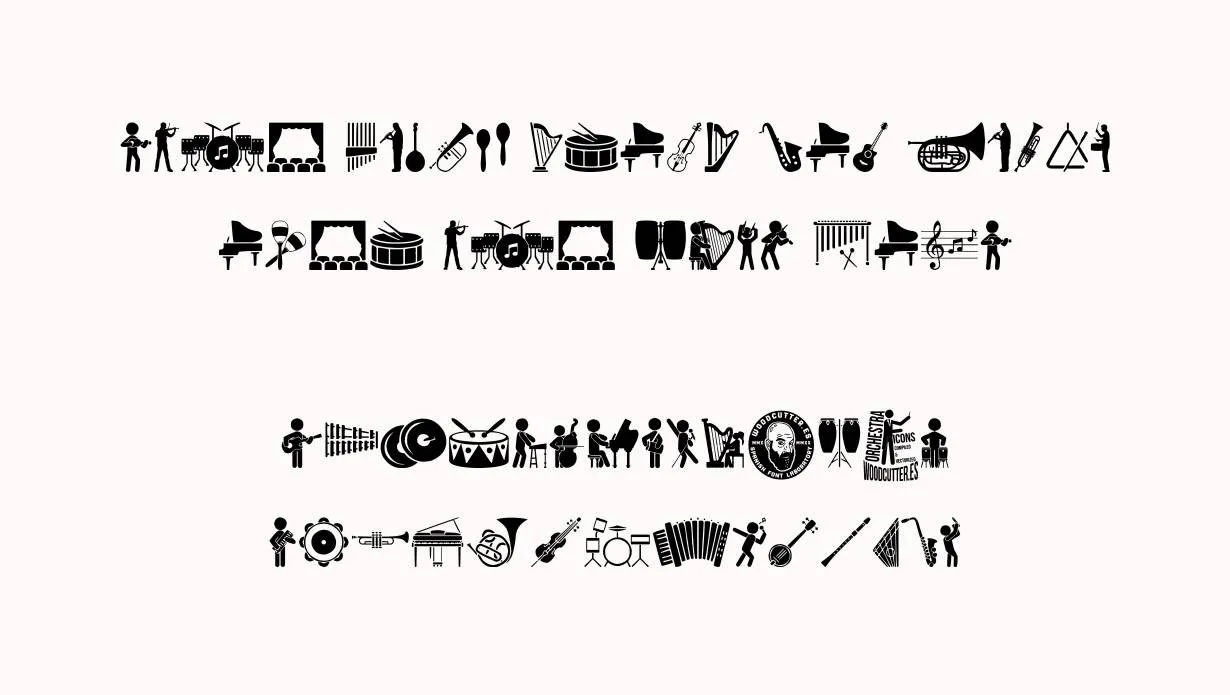
Music Font is a typeface specifically designed for musical notation, making it a valuable tool for sheet music and music-related design projects.
| Name | Music Font |
| Designer | Unknown |
| Style | Dingbats |